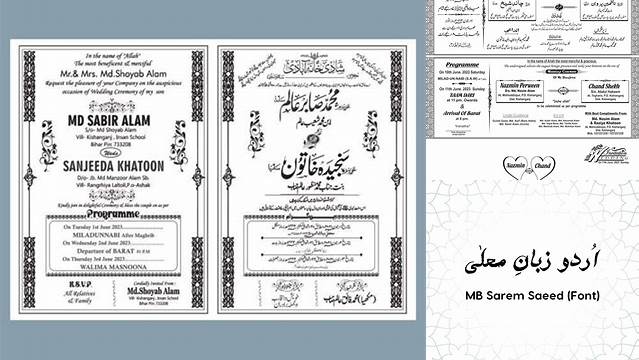
Urdu Fonts For Wedding Cards: Your Ultimate Guide
Urdu Fonts for Wedding Cards: A Guide to Elegant Typography
Hey guys! Planning a wedding is a massive deal, right? One of the coolest (and often overlooked) aspects is designing your wedding cards. They're the first glimpse your guests get into your special day, and they set the tone for the entire celebration. If you're going for a touch of class and cultural richness, using Urdu fonts for your wedding cards is a fantastic idea. Let's dive into the world of Urdu typography and discover how to make your wedding cards truly unforgettable. This comprehensive guide will explore everything from selecting the right Urdu fonts to incorporating them beautifully into your card designs, ensuring your invites are as unique and special as your love story. We'll look into the different font styles, their suitability for various card themes, and the technical aspects of using them, so you can create stunning wedding cards that your guests will cherish. It is important to understand the significance of selecting appropriate Urdu fonts that resonate with the essence of your event, reflecting your personal style and cultural heritage. The goal is to create invitations that are not just informative but also aesthetically pleasing and memorable.
Why Choose Urdu Fonts for Your Wedding Cards?
Okay, so why bother with Urdu fonts, especially if you're not fluent in the language? Well, first off, Urdu has this incredible aesthetic appeal. The script itself is beautiful, with its flowing curves and elegant forms. Using Urdu fonts instantly adds a layer of sophistication and cultural depth to your wedding cards. It's a way to honor your heritage and express your unique identity. Secondly, Urdu fonts are perfect for conveying emotions and sentiments. The language itself is known for its romanticism and poetry, and the fonts echo this. They can make your invitations feel warm, inviting, and deeply personal. Thirdly, incorporating Urdu into your wedding cards makes them stand out. In a world saturated with generic designs, using a unique script like Urdu will definitely catch the eye and leave a lasting impression on your guests. And let's be honest, who doesn't want their wedding cards to be remembered? Using Urdu fonts helps to elevate the visual appeal of the wedding cards, ensuring that they are not only informative but also serve as beautiful keepsakes for guests. The use of Urdu fonts can enhance the overall aesthetic, infusing a sense of heritage and cultural richness into the invitations. By selecting the right font styles, you can create wedding cards that are both visually striking and deeply meaningful, reflecting the unique spirit of your celebration. Urdu typography can truly transform your wedding cards from simple announcements into works of art.
Exploring Different Urdu Font Styles
Alright, let's get down to the nitty-gritty. Just like English fonts, Urdu fonts come in a variety of styles, each with its own personality and charm. Understanding these different styles is key to choosing the right font for your wedding cards. First up, we have Nasta'liq. This is probably the most popular style, and for a good reason. Nasta'liq is known for its graceful curves and flowing lines. It's considered the classic Urdu calligraphy style and is perfect for adding elegance and sophistication to your cards. Then there's Ruq'ah, another elegant option, known for its simplicity and legibility. It's a great choice if you want a more modern and clean look. Nastaliq Kashida is another beautiful style with elongated characters, often used for titles and headings to add a touch of grandeur. It's ideal for making certain words or phrases stand out. For a more contemporary feel, you can check out modern Urdu fonts, which are designed with a clean, minimalistic approach. These fonts often work well with modern card designs and can be easily incorporated with English text. When selecting Urdu font styles, consider the overall theme of your wedding and the message you want to convey. If your wedding has a traditional theme, Nasta'liq or Nastaliq Kashida might be the best choices. For a modern wedding, Ruq'ah or modern Urdu fonts can be more appropriate. Understanding the different styles helps you choose fonts that complement your theme and create a cohesive and visually appealing design. The right font style will enhance the card's aesthetic appeal and convey the desired tone and message of your wedding invitation.
Technical Aspects: How to Use Urdu Fonts
Combining Urdu and English Fonts
Mixing Urdu and English fonts can be a beautiful way to create a unique and balanced design. Here are a few tips to help you do it right. First, choose complementary fonts. The Urdu and English fonts should complement each other in terms of style and personality. Avoid using fonts that clash or are too different. Try to find Urdu fonts that match the style of your chosen English font. Use contrast to your advantage. Create visual interest by using a contrasting font for the headings or main information, while using a more subdued font for the body text. For example, you could use a bold Urdu font for the names and a simple English font for the details. Maintain a consistent design. Despite using two languages, ensure that the overall design is cohesive. Maintain a consistent color scheme, layout, and visual elements. Using consistent design elements will tie the two languages together and create a harmonious look. Prioritize readability. Make sure that both the Urdu and English texts are easy to read. Use appropriate font sizes, spacing, and colors to enhance readability. Do not try to fit too much text in small spaces. Consider the purpose of each language. Decide which language is more prominent and which is used for supporting information. This will help you to create a clear hierarchy. The blending of the two languages requires careful consideration of font pairing, layout, and overall design aesthetics to create invitations that are both visually appealing and culturally resonant. This integration allows you to celebrate both traditions while creating wedding cards that are truly unique. By harmonizing these languages, you can create wedding cards that are both beautiful and meaningful, showcasing the diversity and richness of your heritage.
Color Schemes and Design Elements
Color schemes and design elements play a big role in the overall look and feel of your wedding cards. Choosing the right colors can enhance the elegance and sophistication of your Urdu fonts. Consider the theme of your wedding when selecting colors. For a traditional wedding, you might choose classic colors like gold, cream, and red. For a modern wedding, you could opt for a more contemporary palette, such as black and gold, or even bolder colors. Use color psychology to your advantage. Different colors evoke different emotions. Gold and cream often signify luxury and sophistication, while softer colors like pastels create a more romantic feel. Experiment with different color combinations. Try pairing colors that complement each other, such as blue and gold, or green and silver. Using a variety of colors can make the wedding cards more visually attractive. Beyond color, consider using design elements that complement your Urdu fonts. Incorporate traditional motifs, such as paisley patterns, floral designs, or geometric shapes. These elements can add a touch of cultural richness and visual appeal. Use borders and frames to highlight the Urdu text. A well-designed border can frame the text beautifully and create a sense of structure. Add embellishments like ribbons, glitter, or foil stamping to add a touch of luxury and make your cards even more special. The careful selection of colors, combined with thoughtfully chosen design elements, can dramatically enhance the overall look and feel of your wedding invitations. By integrating these elements effectively, you can ensure that your wedding cards not only convey essential information but also serve as beautiful mementos of your special day. These thoughtful design choices help to create cards that are both meaningful and visually stunning.
Tips for Writing Urdu Text on Wedding Cards
Alright, let's talk about the actual writing part. Even if you're not fluent in Urdu, there are ways to ensure the text on your wedding cards is perfect. Hire a professional calligrapher or translator. If you want your Urdu text to be flawless, consider hiring a professional. They can help with both the calligraphy and the translation, ensuring that the text is accurate and beautiful. Use online translation tools. There are several online tools that can help you translate English text into Urdu. While these tools are helpful, they may not always be perfect, so it's a good idea to have a native speaker review the translations. Get feedback from native speakers. If you have friends or family members who are fluent in Urdu, ask them to review your text. They can catch any errors or make suggestions for improvement. Focus on the key details. Your wedding cards should include important details like the names of the bride and groom, the date, time, and location of the wedding, and any special instructions. Keep it concise. Avoid using long, complicated sentences. Stick to clear, straightforward language that's easy for guests to understand. Proofread everything carefully. Before you send your cards to print, proofread the Urdu text several times. Double-check for any spelling or grammatical errors. Using professional help or leveraging resources will enable you to produce wedding cards that not only communicate the necessary details but also showcase the beauty and elegance of the Urdu language. Careful proofreading, translation verification, and attention to detail ensures that the final invitations are both accurate and aesthetically pleasing.
Where to Find Urdu Fonts
Okay, where do you actually find these beautiful Urdu fonts? Here are a few places to start. Google Fonts. This is a great resource for free fonts. You can find a selection of Urdu fonts that are easy to download and use. DaFonts. This is another popular website that offers a variety of fonts, including Urdu fonts. You can browse the fonts and download them directly to your computer. MyFonts. This website offers a wider selection of premium Urdu fonts. They often have more unique and professionally designed fonts that can add a touch of sophistication to your cards. Font bundles. You can also purchase font bundles that include a collection of Urdu fonts. These bundles often offer great value for money. When searching for Urdu fonts, make sure the fonts you choose are compatible with the software you are using. Also, check the licensing terms before downloading. By exploring these resources, you can discover fonts that perfectly align with your vision and create elegant wedding cards that your guests will cherish. Exploring these sources will help you find a variety of fonts that meet your aesthetic and technical requirements, allowing you to create wedding cards that are both beautiful and highly personalized.
Conclusion: Creating Unforgettable Wedding Cards
So, there you have it! Using Urdu fonts for your wedding cards is a fantastic way to add a touch of elegance, cultural depth, and uniqueness to your special day. From choosing the right font styles to incorporating them beautifully into your designs, this guide has covered everything you need to know. Remember to consider the theme of your wedding, the message you want to convey, and the technical aspects of using Urdu fonts. With a little creativity and planning, you can create wedding cards that are not only informative but also beautiful works of art. Your wedding cards are a reflection of your love story and the beginning of your celebration. Take the time to make them perfect! Go forth and create wedding cards that will wow your guests and set the stage for an unforgettable celebration. Good luck, and happy designing!